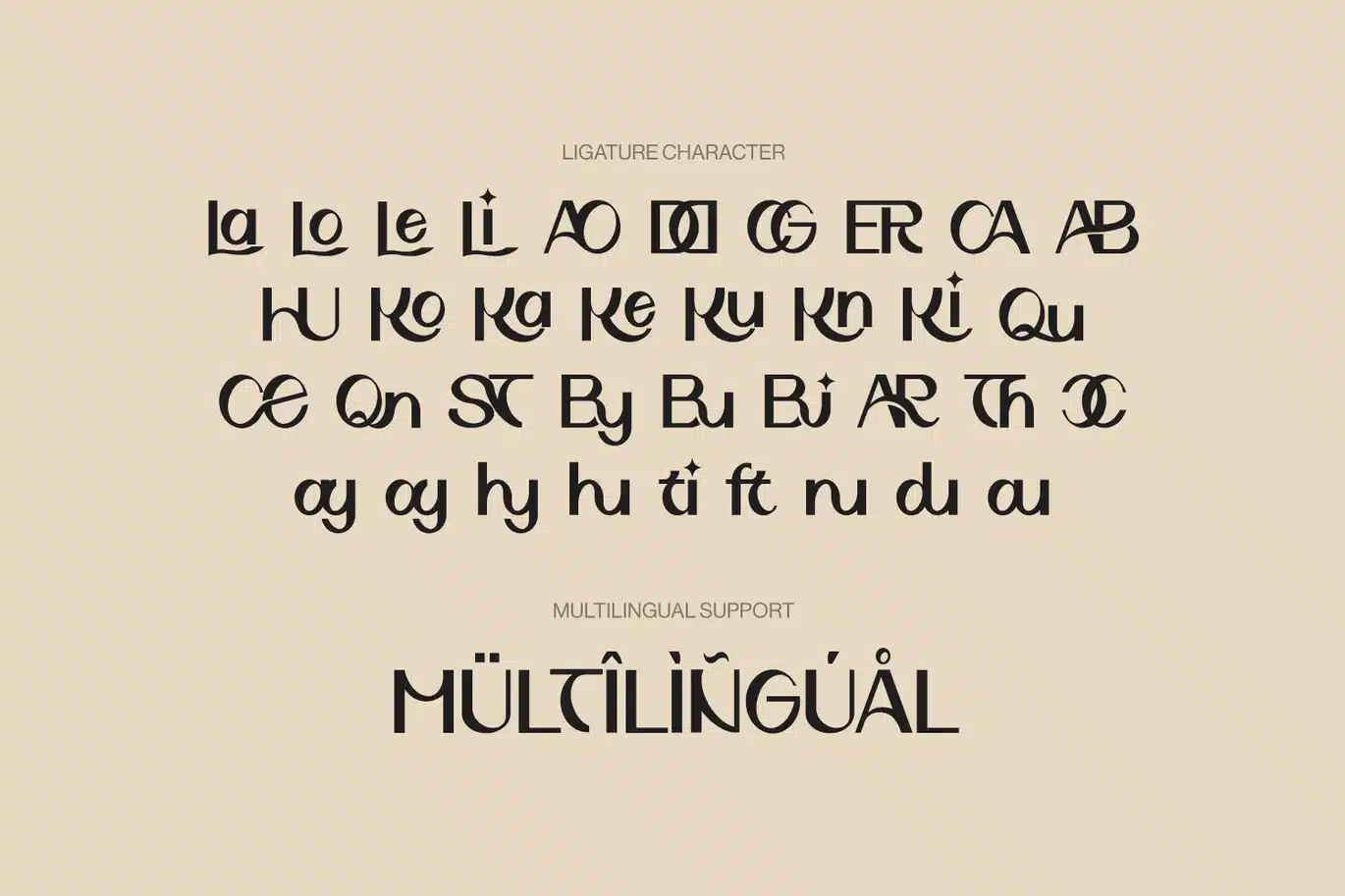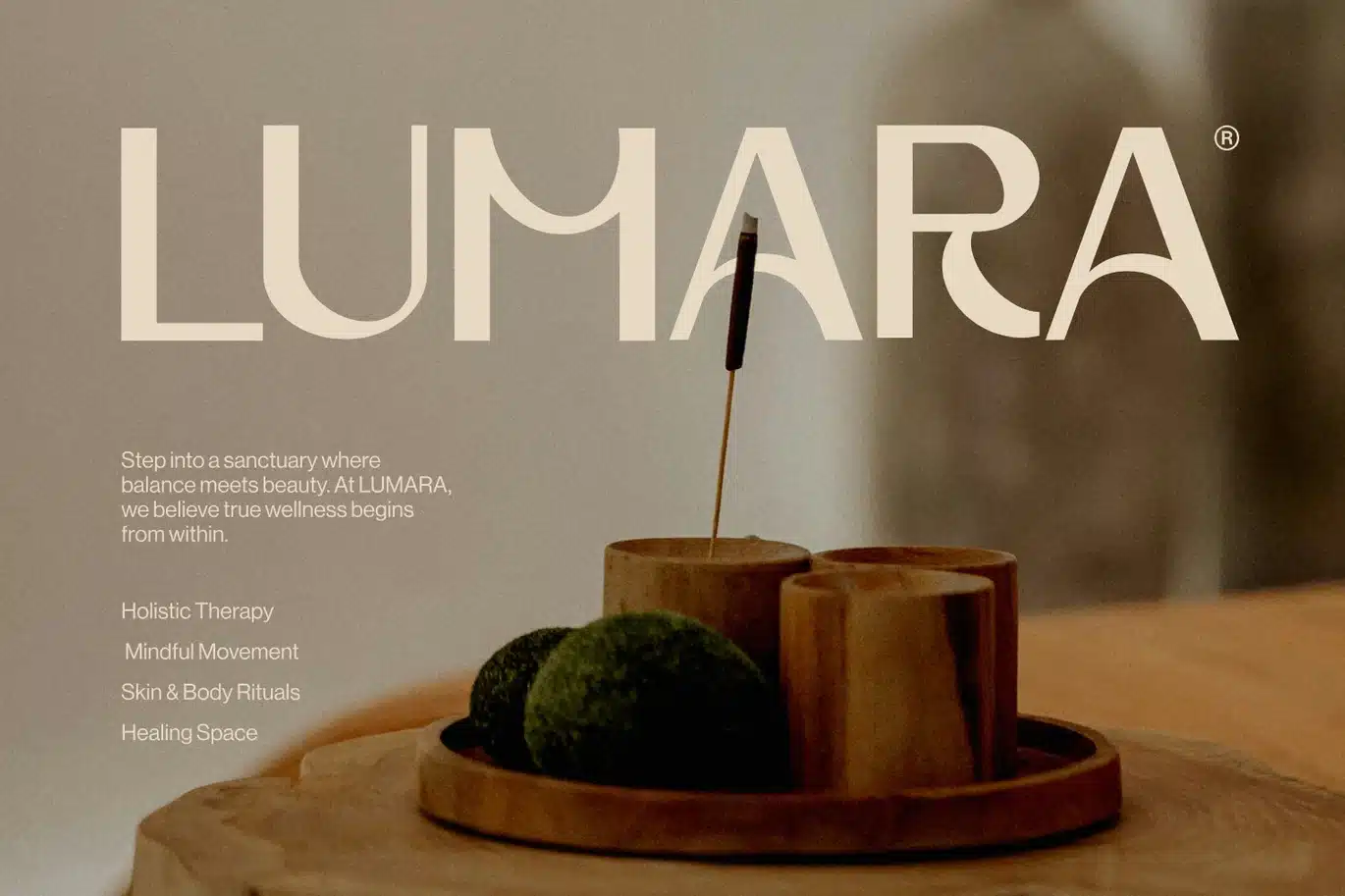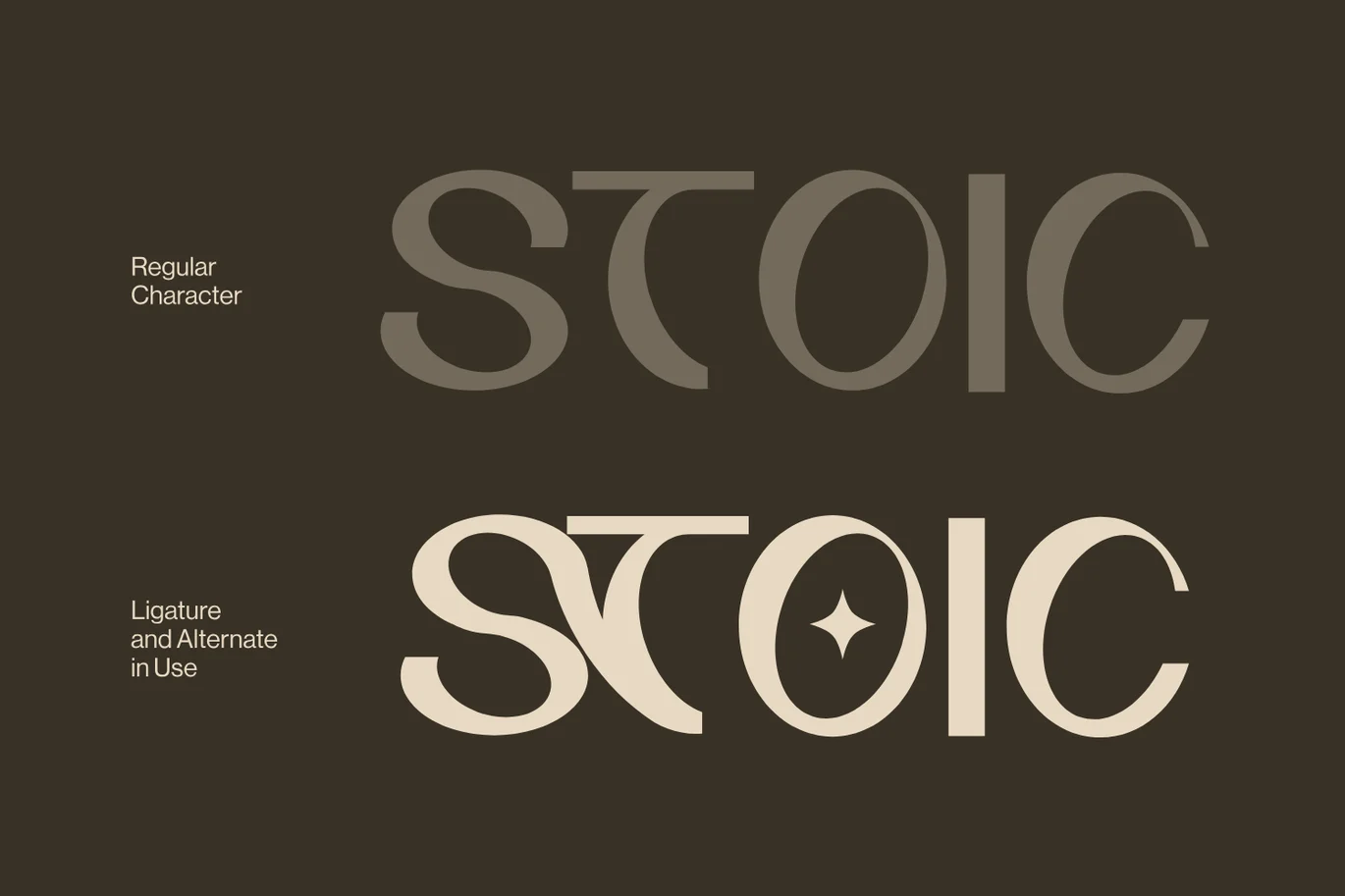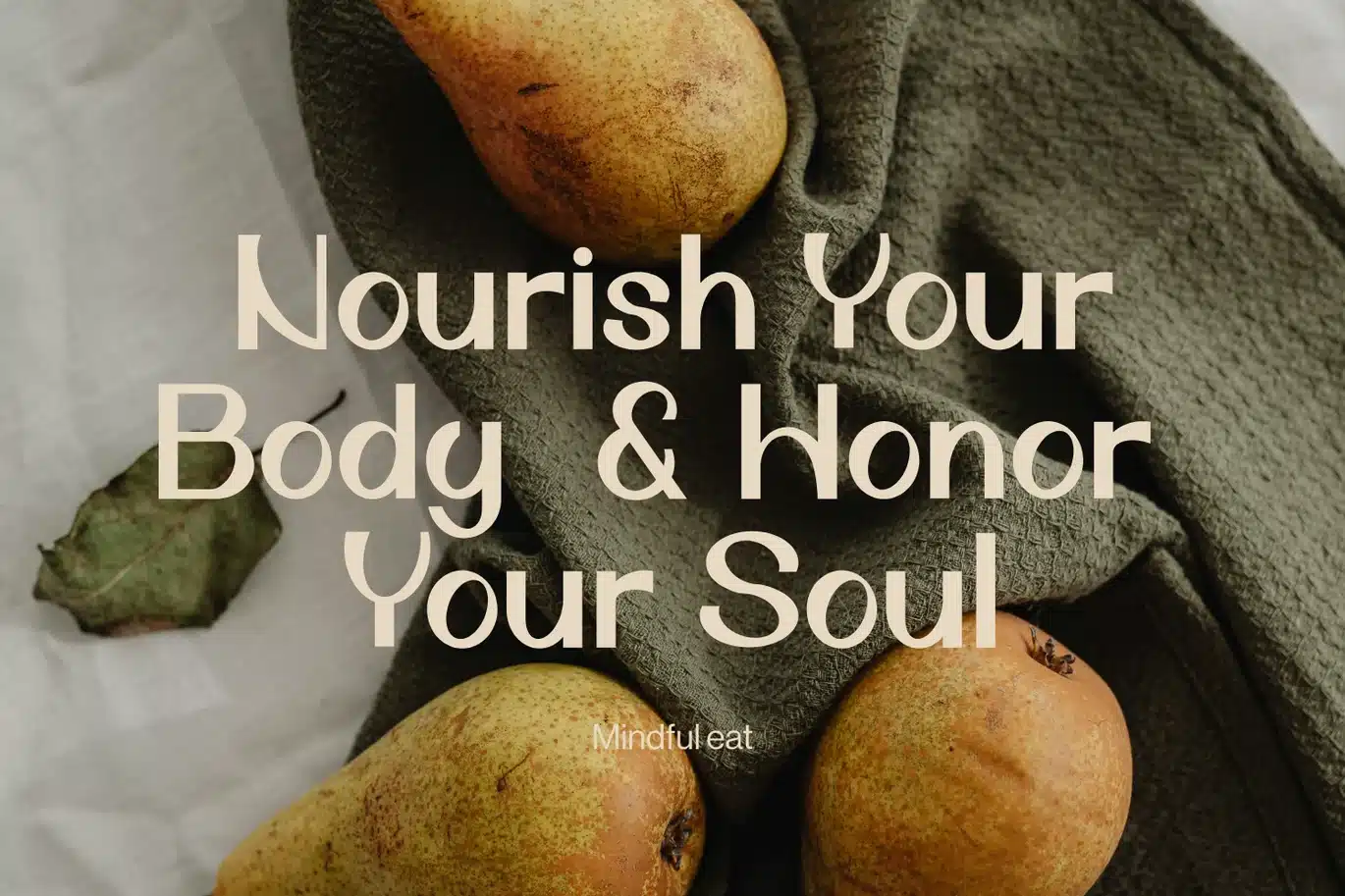
Logo Font – Canore
Canore font is a modern and elegant display typeface designed to create a strong visual impact while maintaining a clean and minimal structure. Influenced by timeless styles like helvetica, montserrat, and futura, this font blends geometric precision with subtle uniqueness, making it perfect for logo design, fashion branding, and corporate identities. Its refined shapes and distinctive details give every composition a sophisticated and contemporary feel.
With its versatile and stylish appearance, Canore font works seamlessly across a wide range of creative needs, from professional corporate layouts to playful kids concepts. The clean and minimal design ensures excellent readability while still standing out as a bold display font. Whether used for branding systems, modern logos, or editorial visuals, Canore stands among high-quality fonts that deliver both elegance and clarity in every design.